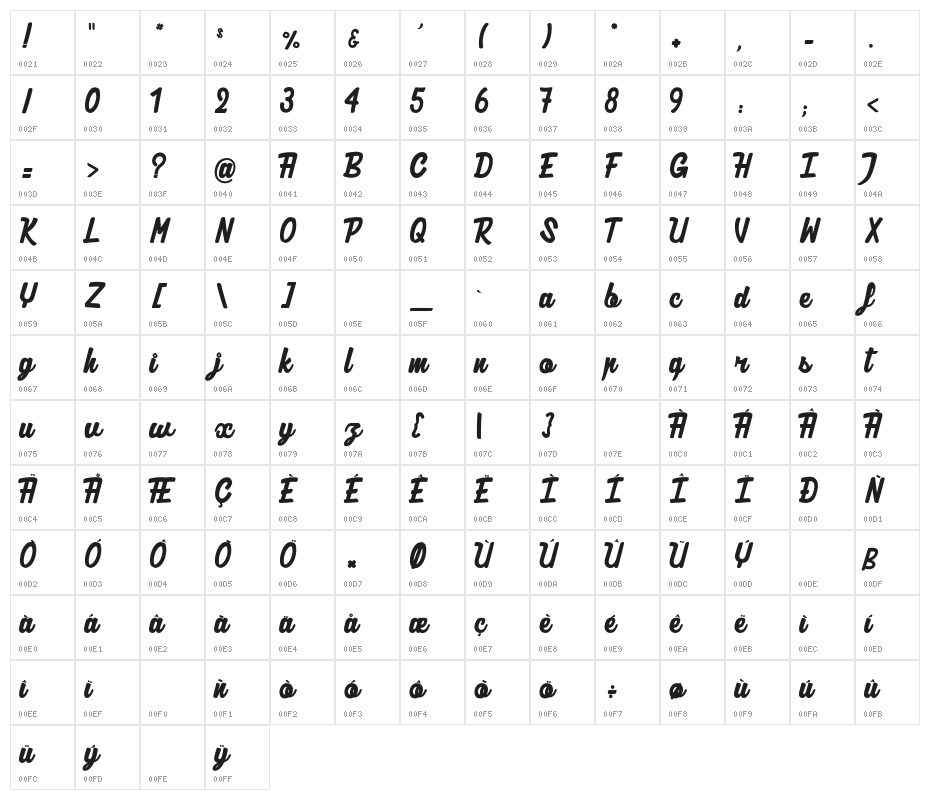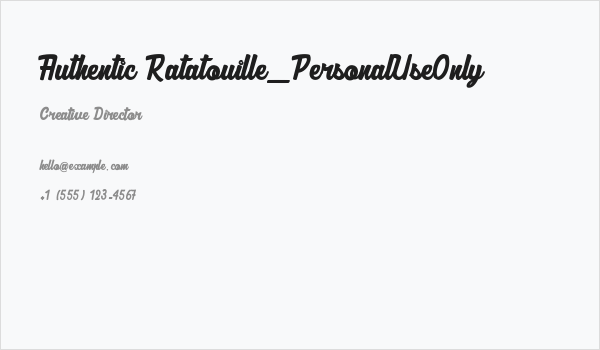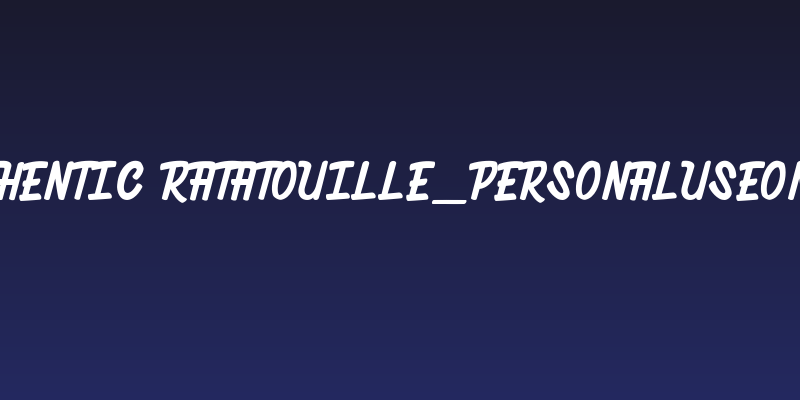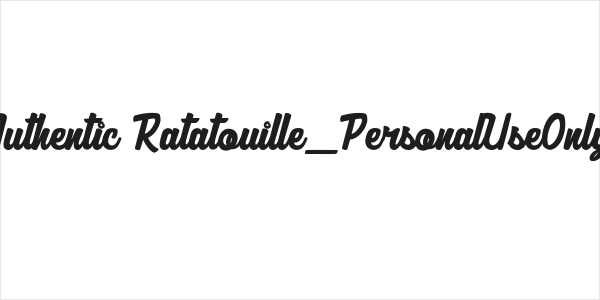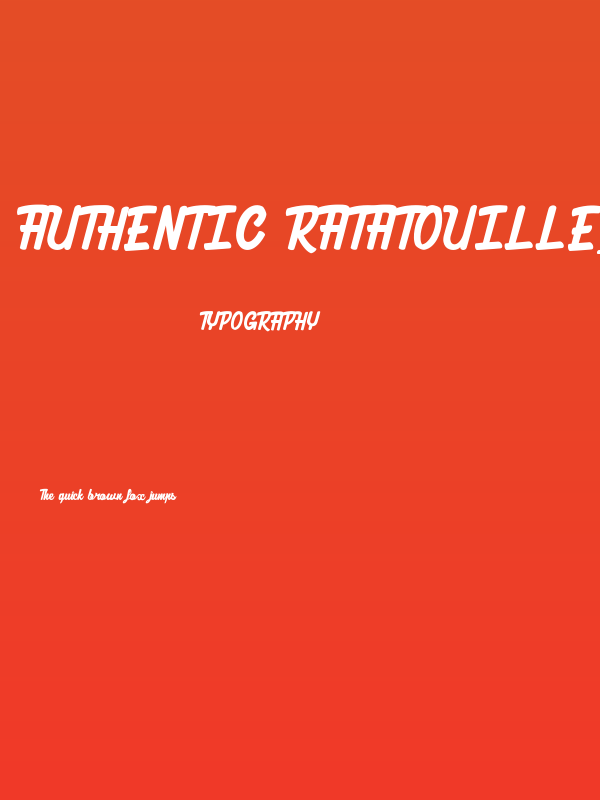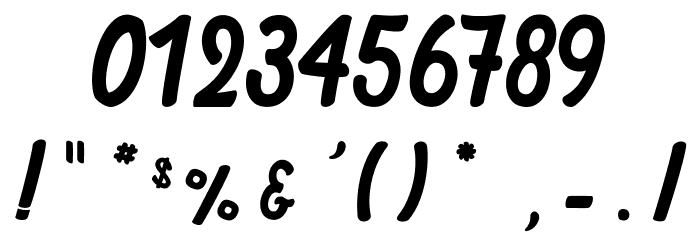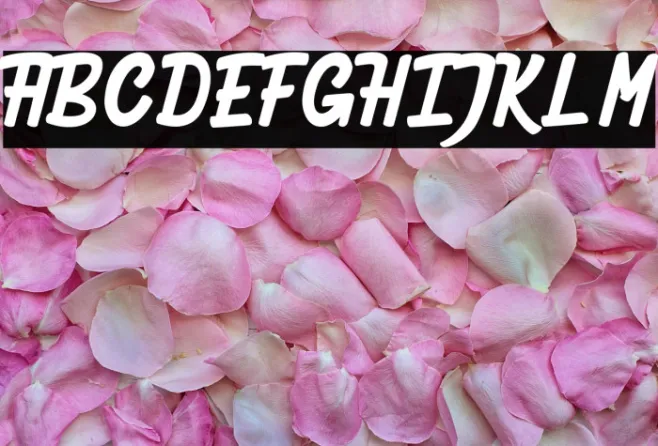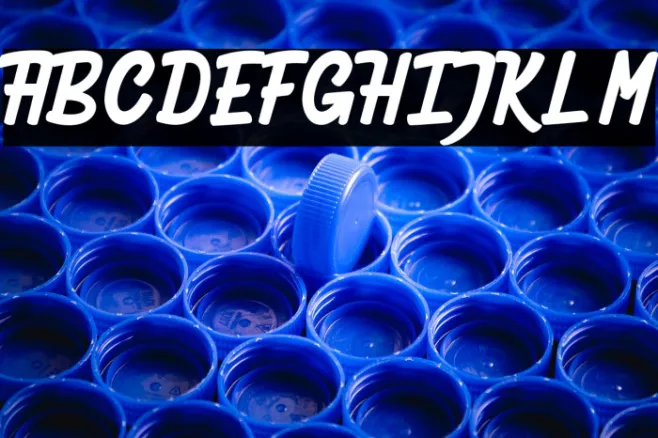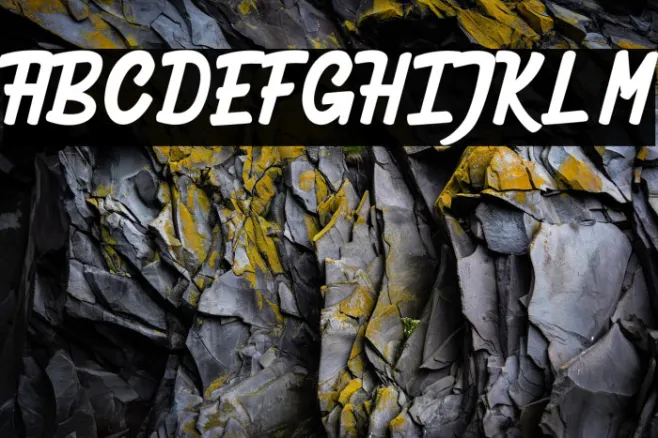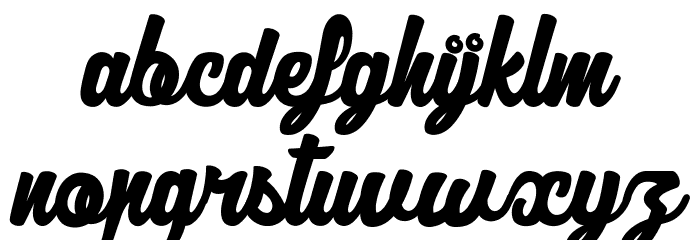
Authentic Ratatouille_PersonalUseOnly Font
Authentic Ratatouille_PersonalUseOnly Description
This font features a bold and playful script style, characterized by its smooth, flowing curves and slightly slanted orientation. The uppercase letters are tall and prominent, while the lowercase letters maintain a consistent rhythm with rounded edges. The numerals are equally bold, ensuring visibility and impact. Special characters are designed to match the overall aesthetic, adding a whimsical touch. The font's energetic and lively appearance makes it suitable for creative and informal applications.
| Proposed Projects | Ideal for branding, posters, invitations, and playful graphic designs. |